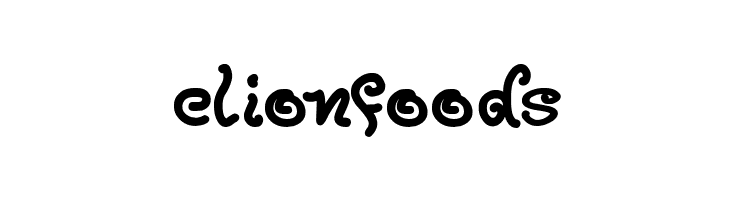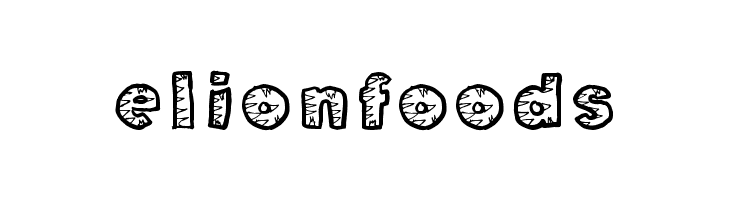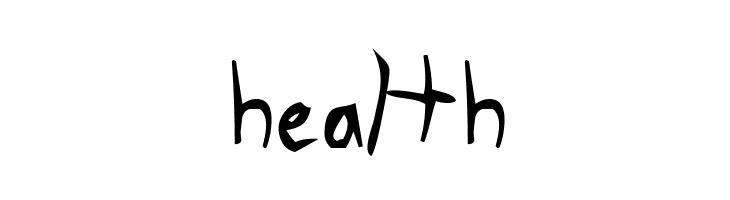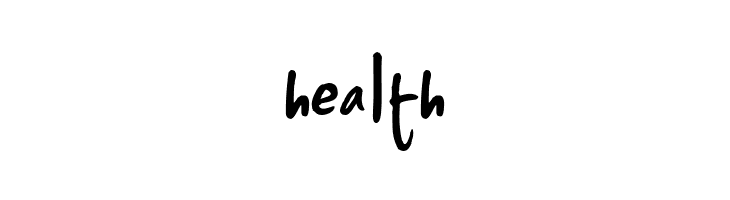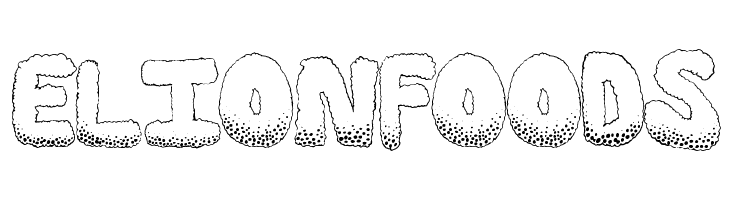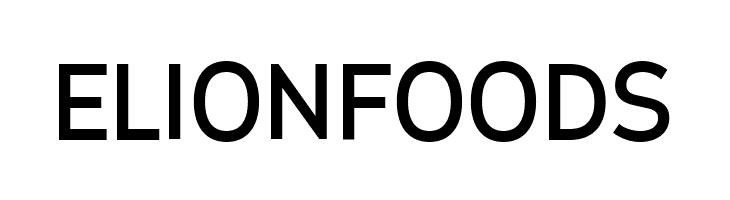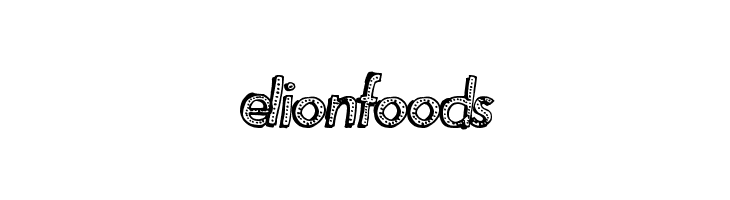
A bold, textured font with a playful, vintage style.
A bold, three-dimensional font with a strong shadow effect and angular design.
A bold, distressed font with a rugged, gritty appearance.
A playful, decorative font with a vintage marquee light style.
A hand-drawn, artistic font with elongated, irregular letterforms and a textured appearance.
A playful and quirky font with irregular, dynamic letterforms.
A bold, hand-drawn font with playful, decorative patterns.
A bold, playful handwritten font with a dynamic and quirky style.
A playful, textured font with a bubbly, hand-drawn appearance.
A playful, hand-drawn font with bold, uneven strokes and a whimsical style.
A bold, playful font with a hand-drawn, dynamic style.
A whimsical, hand-drawn font with intricate, swirling embellishments.
A classic serif font with elegant strokes and a timeless appearance.
A modern sans-serif font with clean lines and unique curved terminals.
A bold, modern sans-serif font with thick strokes and a geometric influence.
A modern, clean font with slightly curved uppercase letters and clear lowercase characters.
A rugged, textured font with a natural, wild aesthetic.
A modern, geometric font with a sleek and futuristic design.
A quirky, hand-drawn font with irregular, angular shapes and dynamic strokes.
A bold, decorative font with a playful, pipe-like design.
A bold, decorative font with geometric shapes and intricate, hand-drawn patterns.
A bold, neon-style font with layered outlines and a modern aesthetic.
A playful, eclectic font with a cut-out magazine style and bold, decorative characters.
A bold, neon-inspired font with a textured, glowing effect.
A bold, hand-drawn font with a textured, sketch-like appearance.
A bold, distressed font with a vintage, textured appearance.